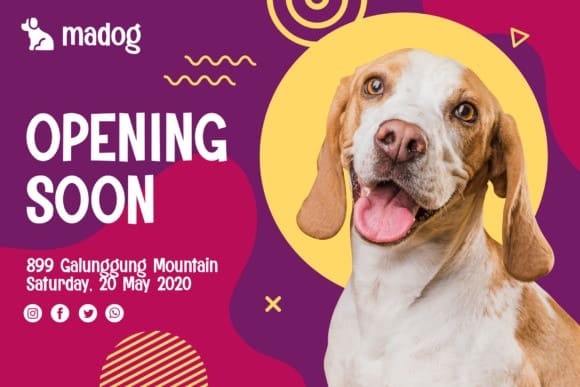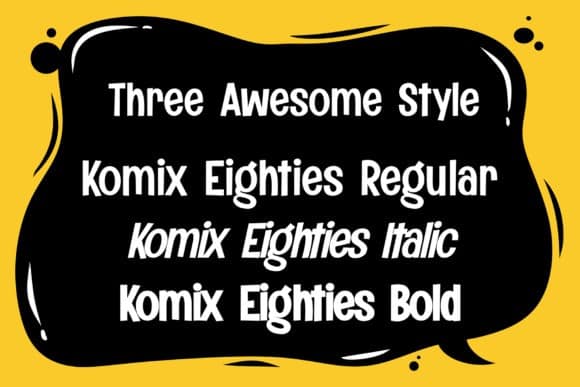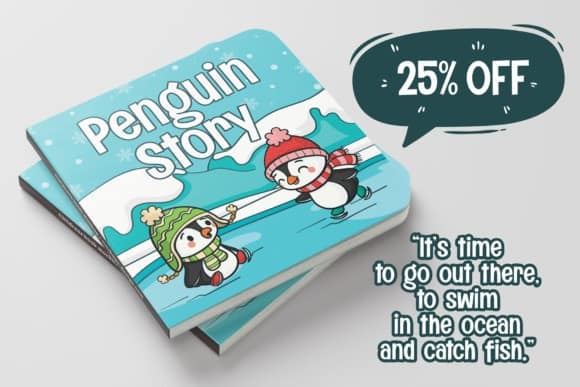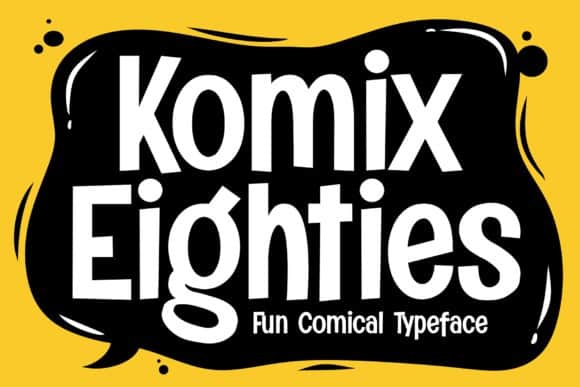
Komix Eighties Display Font
Komix Eighties Display Font is a simple but Perfect mark for display, t-shirt, logo marks, typographic quotes, packaging, blog headline, and many more. It’s designed and shared by figuree studio. This typeface is a beautiful display font. It maintains its classy calligraphic influences while feeling contemporary and fresh. Komix Eighties Display Font versatility will appeal to a wide range of crafty ideas, from letterheads and titles, to stationery.